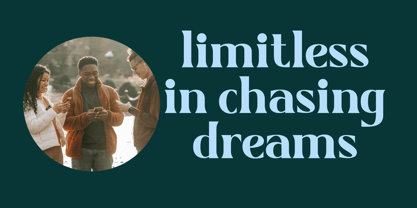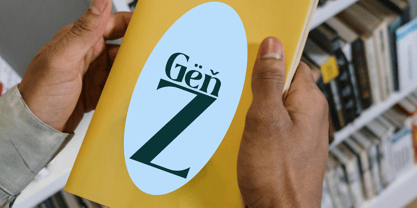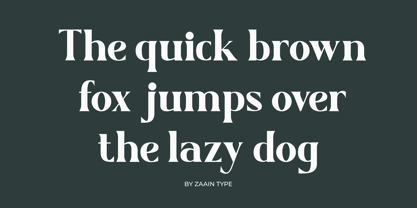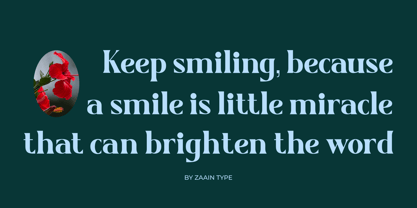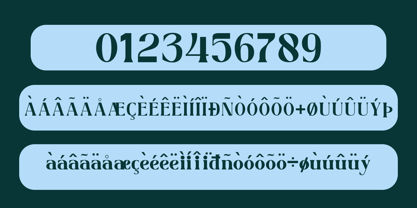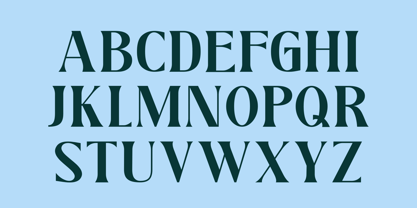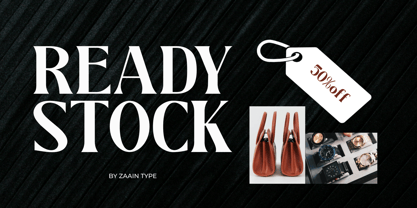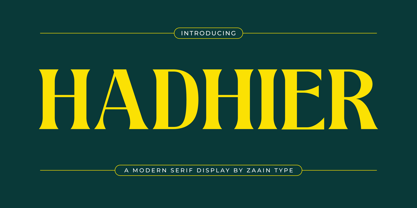
Hadhier
by Zaain Type
The Hadhier Font Family was designed by Ju Naen and published by Zaain Type. Hadhier contains 1 styles. More about this family
Hadhier is a serif font that exudes elegance and a classic impression. With its refined design and balanced proportions, Hadhier is perfect for various purposes, from editorial design and formal invitations to luxurious branding